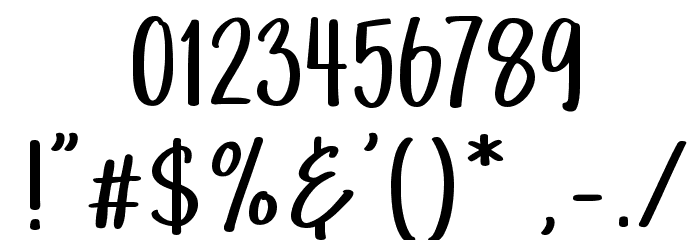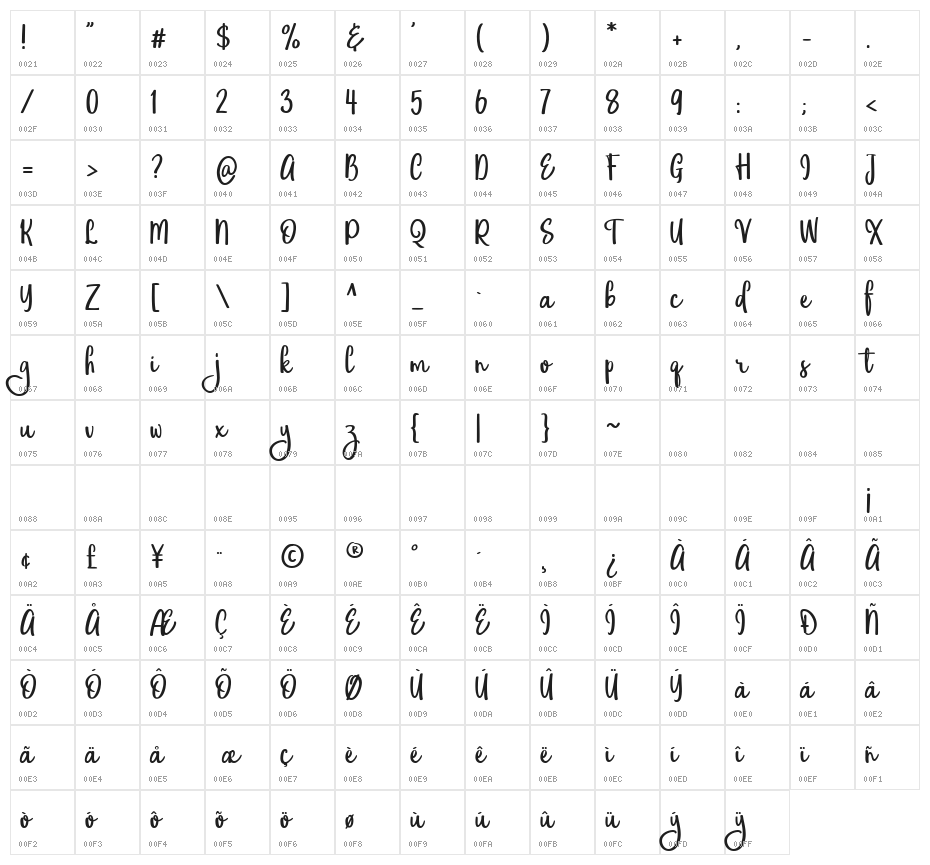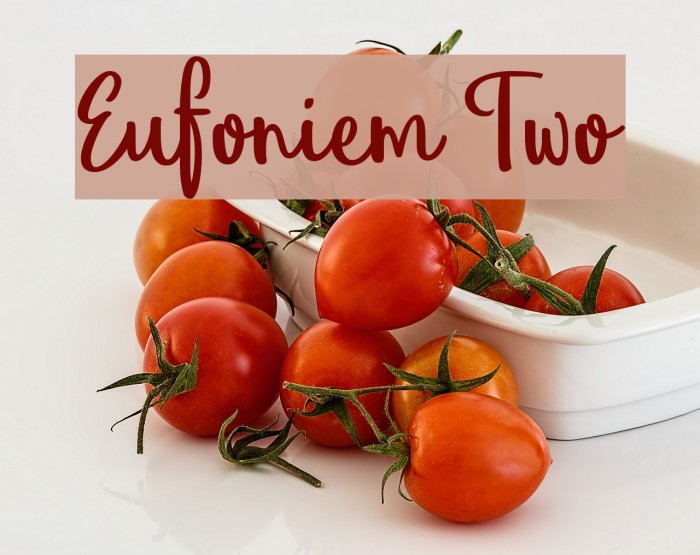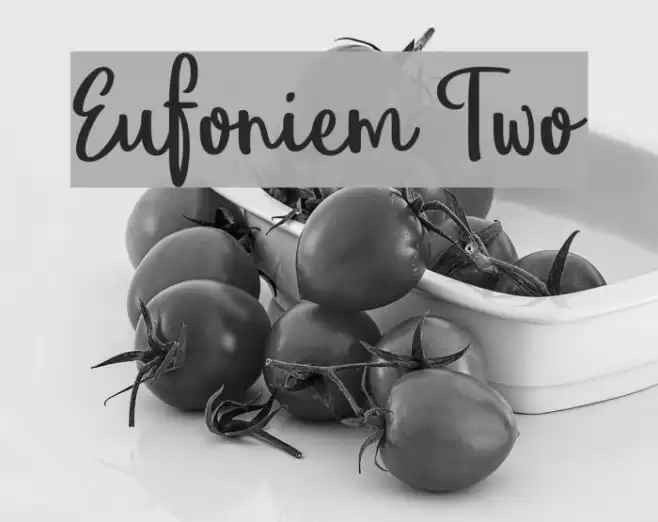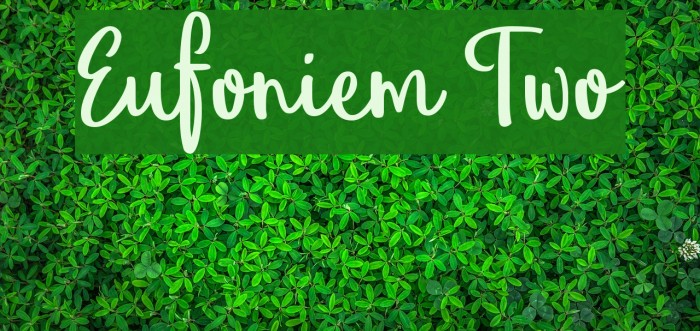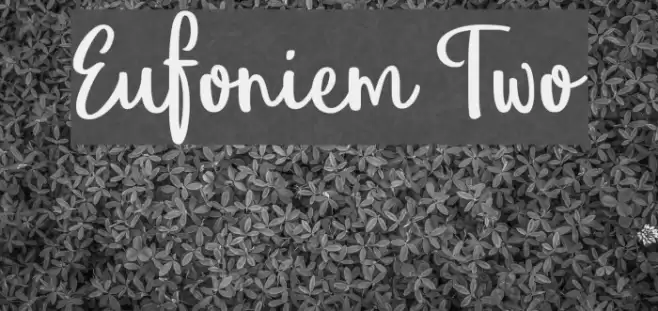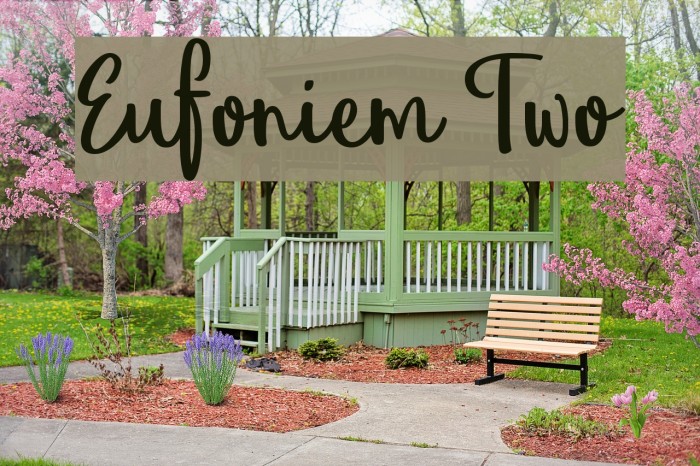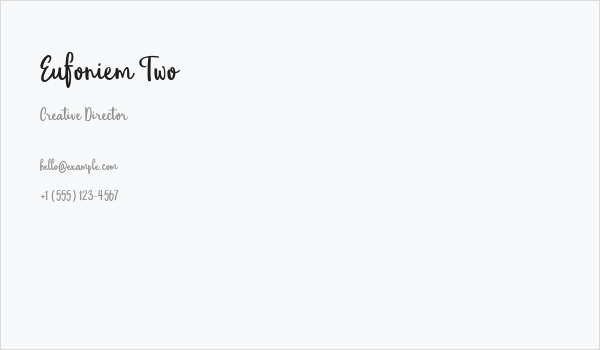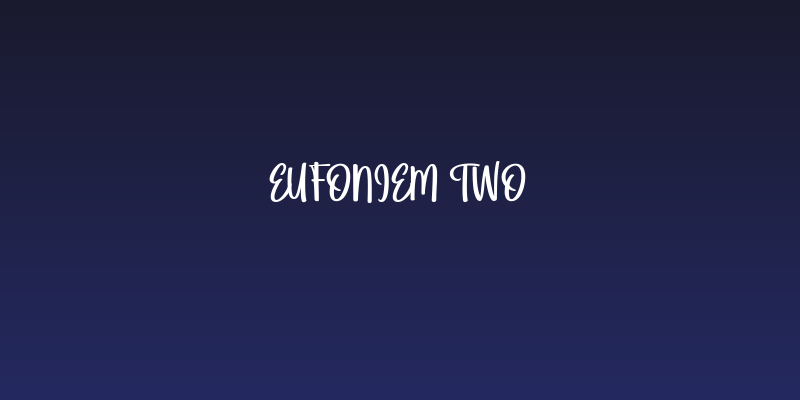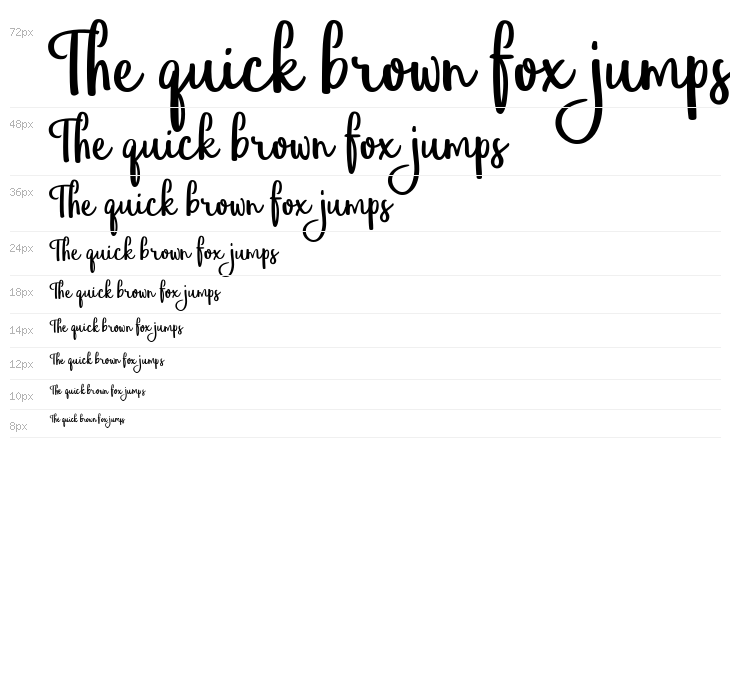
Eufoniem Two Font
Eufoniem Two Description
This font features a playful and energetic script style with a handwritten appearance. The letters are bold and rounded, with a consistent stroke width that gives a smooth and flowing look. The uppercase characters are tall and slightly narrow, while the lowercase letters are more compact and maintain a casual, friendly vibe. The numerals are clear and easy to read, matching the overall style of the alphabet. Special characters are included, maintaining the same playful and dynamic aesthetic. This font is ideal for projects that require a personal touch or a sense of whimsy.
| Overall Style | Playful, Casual |
| Proposed Projects | Greeting cards, invitations, branding, social media graphics, and playful packaging designs. |